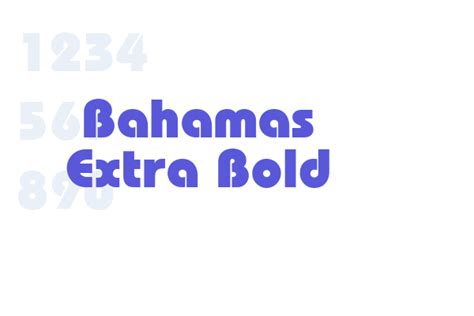
Hey guys! Are you on the hunt for a super cool, eye-catching font that screams boldness? Well, look no further! This article is all about the Pseibahamasse Extra Bold font and how you can get your hands on it – absolutely free . We’ll dive into what makes this font so awesome, where to download it safely, and how you can use it to spice up your projects. So, let’s get started!
What is Pseibahamasse Extra Bold Font?
Alright, first things first, what exactly is the Pseibahamasse Extra Bold font? Imagine a font that’s practically yelling at you from the page – in a good way, of course! This font is all about making a statement. It’s got that strong, thick, and impactful design that’s perfect for grabbing attention. Think headlines, titles, posters, and anything else where you want your words to stand out. It’s the kind of font that says, “Hey, look at me!” without being overly complicated or fussy. It’s designed to be easily readable even at larger sizes, which makes it perfect for a variety of applications. This font is a display font, mainly used for headings, titles, and short text blocks where impact and legibility are key. Due to its bold weight, it is not recommended for body text. It is crucial to choose the right font for the right job, and Pseibahamasse Extra Bold excels in making a strong visual statement. The font’s design often includes a modern, clean aesthetic, which contributes to its versatility. Its characteristics ensure that text remains highly visible and readable, even from a distance. The font’s ability to create a visual impact makes it highly desirable for various design projects. The font’s robust structure adds a professional and contemporary feel to any design. Its simplicity enhances its versatility, allowing it to blend seamlessly with various design styles and aesthetics. The Pseibahamasse Extra Bold font is more than just a typeface; it’s a design tool that empowers you to communicate with confidence and creativity. The font’s striking presence captures the eye and conveys your message with impact, making it ideal for grabbing attention and leaving a lasting impression.
This font is a fantastic choice if you want to create a visually striking design. This font can transform any project into an attention-grabbing masterpiece. This particular font excels in creating an impression and is ideal for projects that demand boldness. You could say that it’s like the font equivalent of a power suit – ready to get the job done with style and impact. The font’s boldness makes it a perfect choice for designs that need to convey authority, such as headlines in magazines, posters, and web designs. The font also provides clear readability, ensuring that the text is easy to understand, even at large sizes. The extra weight of the font ensures high visibility, which contributes to the overall effectiveness of your design. The font is an excellent tool for designers, helping them to draw the viewer’s attention to crucial information and enhance the overall impact of their designs. If you need a font that’s going to make a statement, this one is a strong contender. The impact of the font also increases the design’s perceived quality, making it appear more polished and professional. The font allows you to express your ideas in a creative and effective manner. The design of the font is visually appealing and will make your project stand out.
Why Use Pseibahamasse Extra Bold Font?
So, why should you pick Pseibahamasse Extra Bold over other fonts? Well, there are a few compelling reasons. Firstly, its sheer boldness makes it perfect for headlines and titles. You want your audience to immediately know what your content is about, right? This font helps you achieve that. Secondly, it’s incredibly versatile . While it shines in headlines, it can also be used in other areas where you want to emphasize certain words or phrases. Imagine using it on a website banner or in a social media graphic – instant impact! It’s like the spotlight of the font world. The design makes it perfect for logos, branding, and promotional materials. The font’s distinctive character is something you won’t easily find in other fonts. It’s not just about aesthetics; it is a strategic design choice that enhances brand recognition. The font will help your brand or project to stand out from the crowd. It is ideal for modern designs, offering a clean and impactful look.
Its unique design ensures that it captures attention instantly. The font can enhance your overall design aesthetic and brand identity. This font helps to convey a sense of strength, clarity, and innovation. The font’s design also makes it very easy to read, ensuring that your message is conveyed clearly and efficiently. Whether you’re designing for print or digital media, this font offers a seamless and impactful solution. This font gives your design projects a sense of strength and confidence. This font also can be very helpful if you need to create promotional content or want to announce something new. This font is a fantastic choice for those aiming for a bold, modern look. The font helps to highlight the essential parts of your message, enabling your audience to immediately understand the point. This font will help you to craft visually stunning designs. You can also use it to enhance the readability of your content.